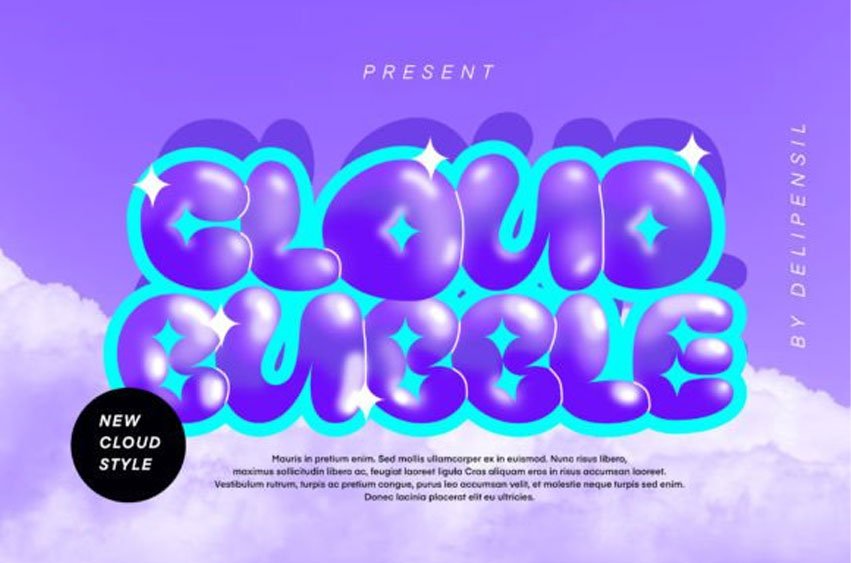
Cloud Bubble Font is a modern display typeface. Change your art with a new style, new trend, and new look.
Use this font for your title magazine, product, element design, poster, quotes, and many more.